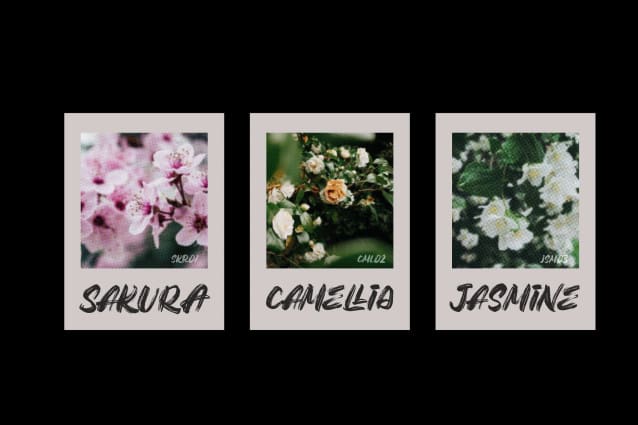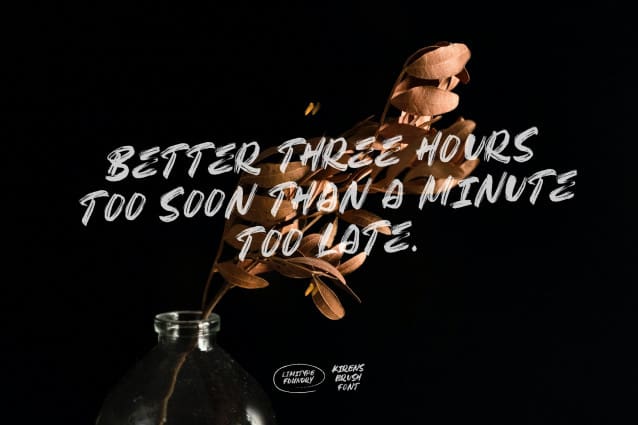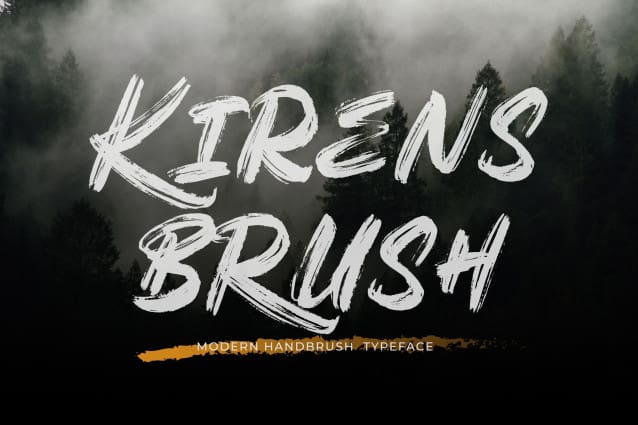
Kirens Brush Font
Kirens Brush Font is a brush font made in a modern, bold, classic and textured handwriting style, suitable for all your design needs that require display typeface to make your design appear bold and stylish.